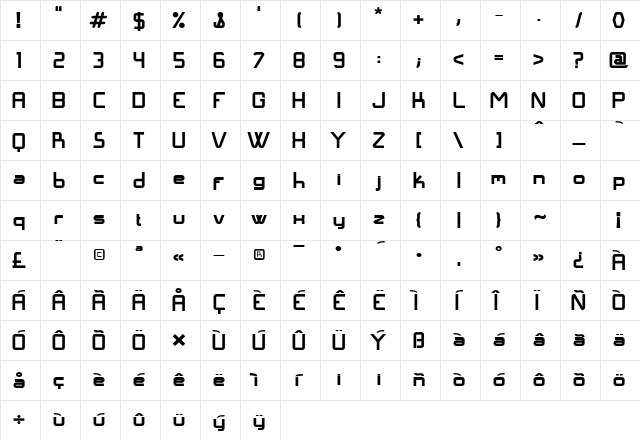
Lang Bold Font Preview
Lang Bold
Design Context for Lang Typeface
Lang offers clean, dependable letterforms without strong stylistic allegiance, making it a practical choice for designers who need flexibility. The heavy weight commands attention and anchors typographic hierarchies.
Pro Tip: Use Lang in both headline and body roles to test its range before committing to a single application.